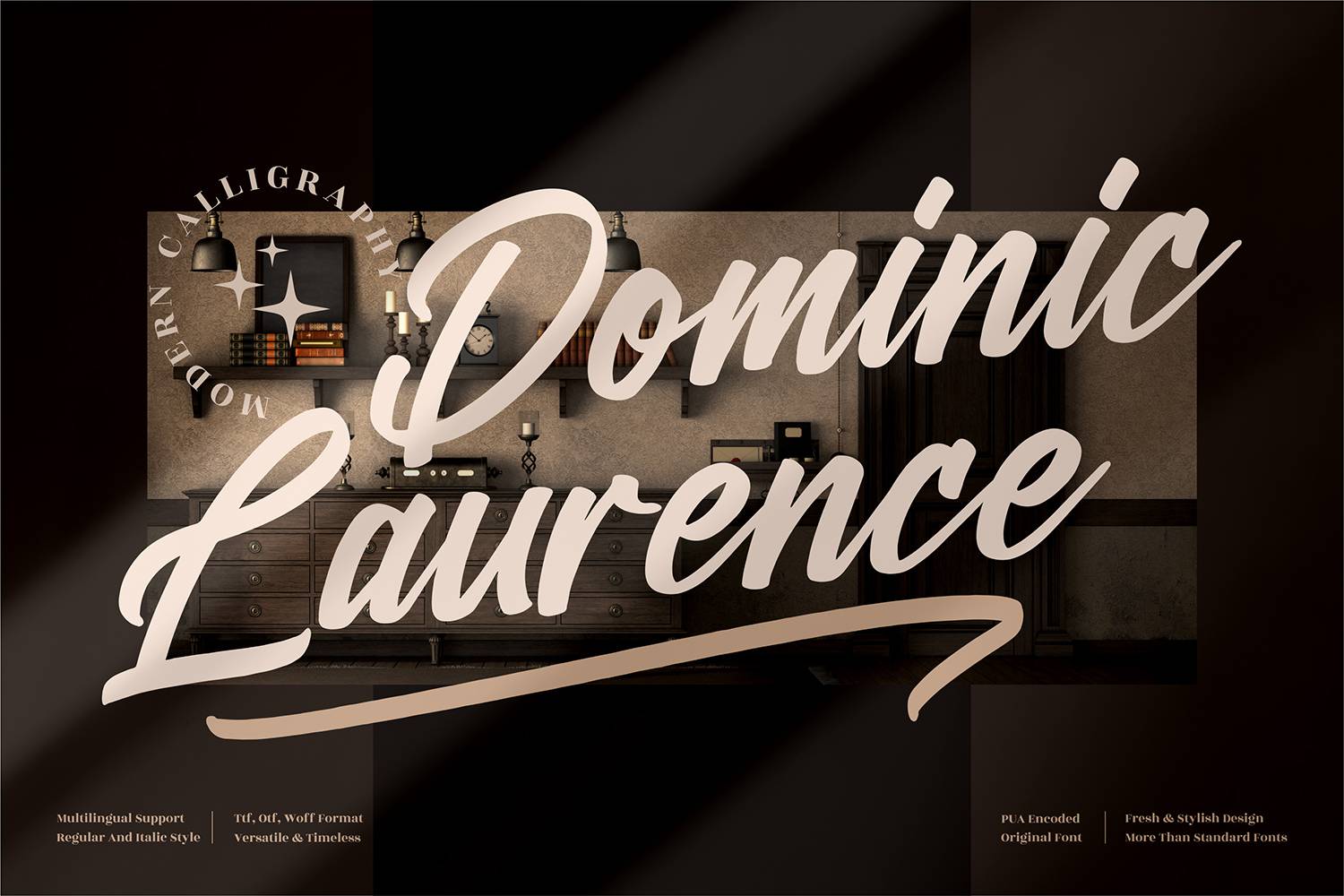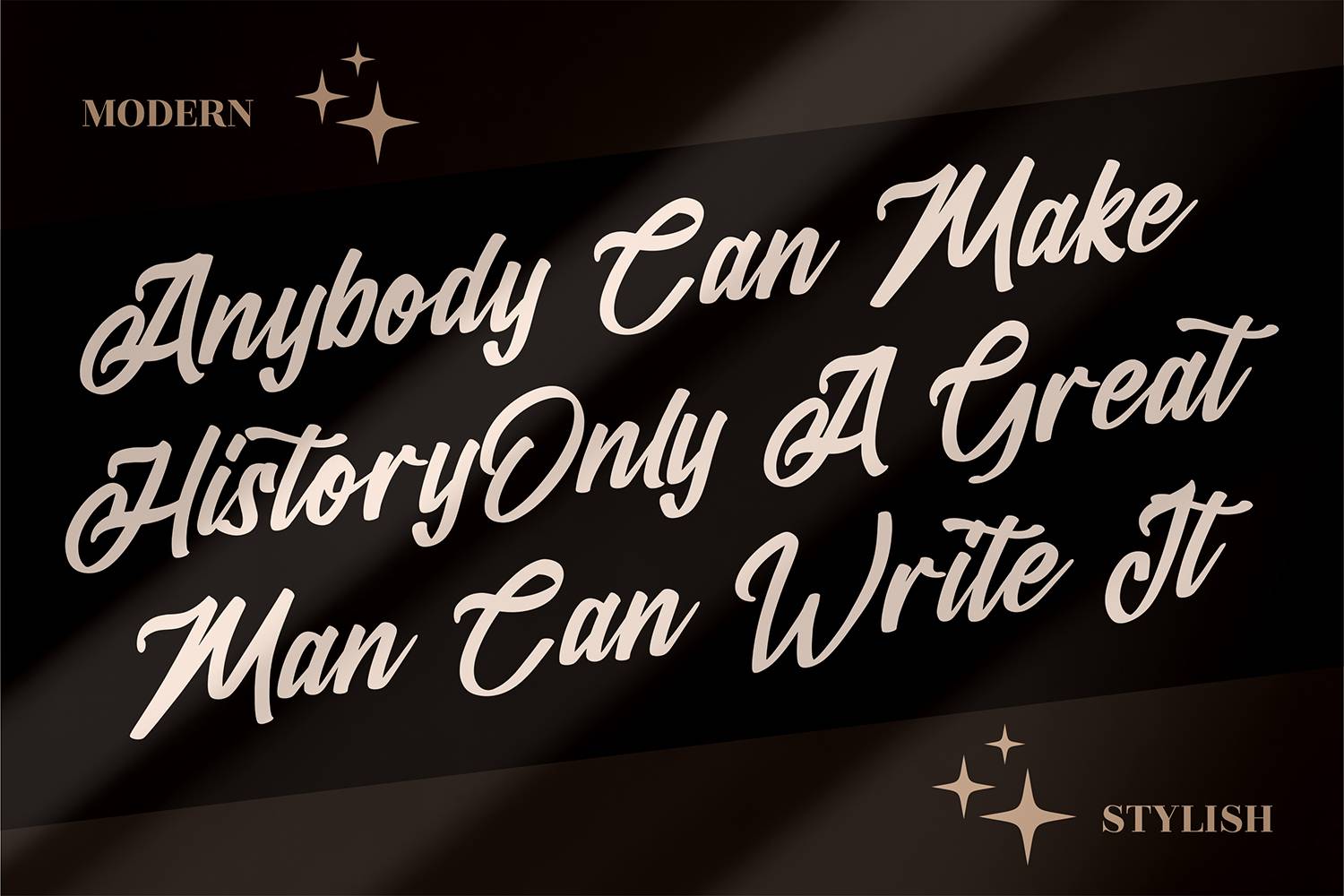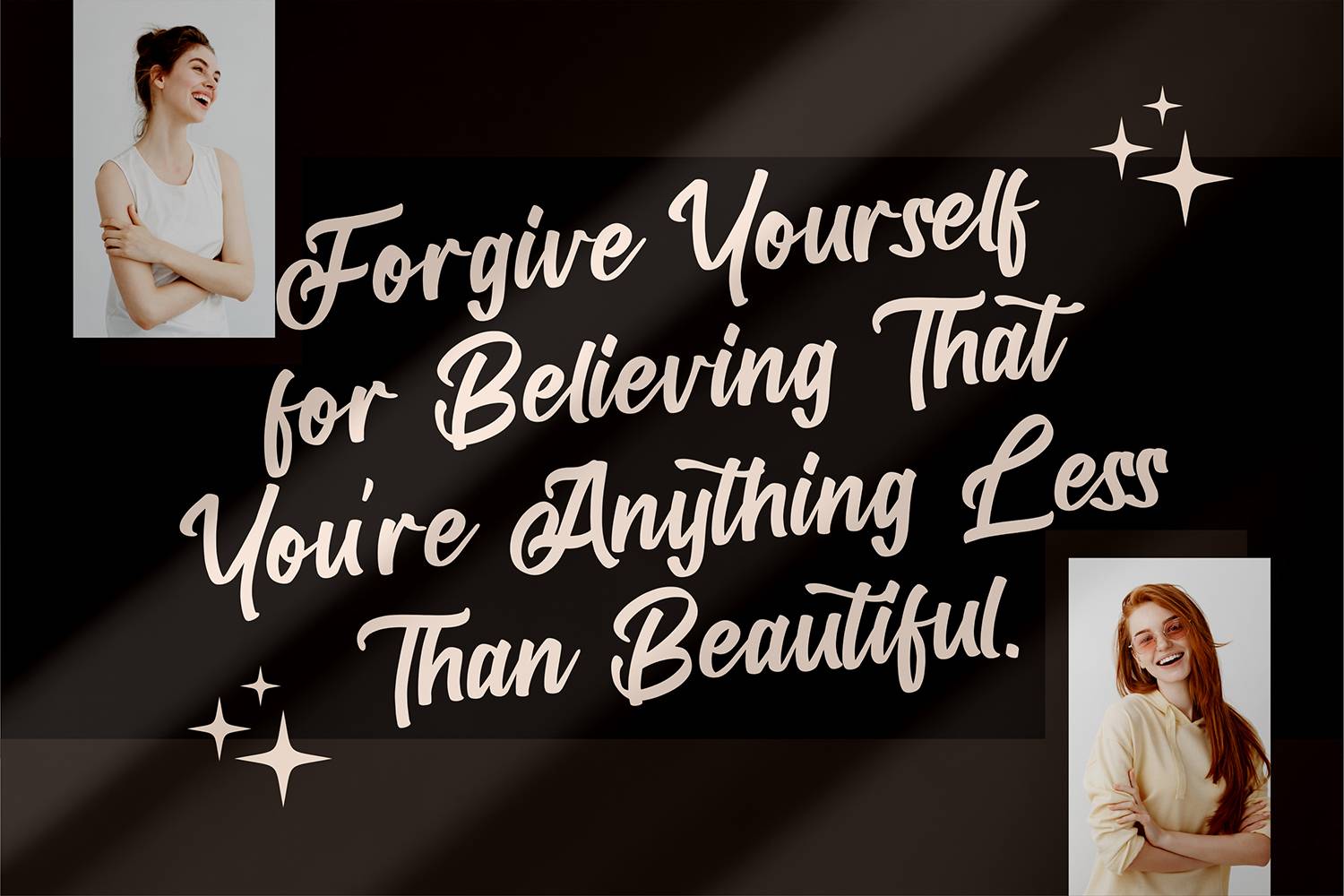
Dominic Laurence is a stylish script font with a smooth, flowing design that captures an elegant, handwritten feel. Its medium weight and slightly condensed letterforms create a lively yet refined appearance, perfect for adding a personal and artistic touch to invitations, branding, and headlines. This font works beautifully in projects that seek a blend of sophistication and approachable charm.
Dominic Laurence Font
About Dominic Laurence Font